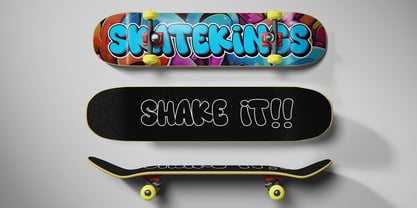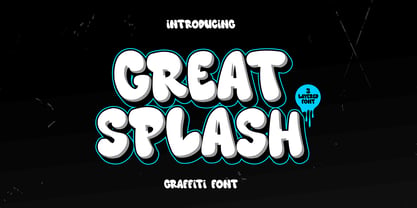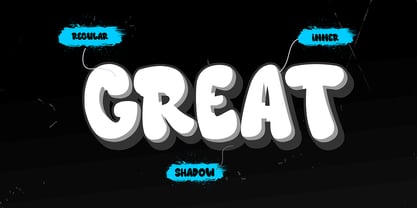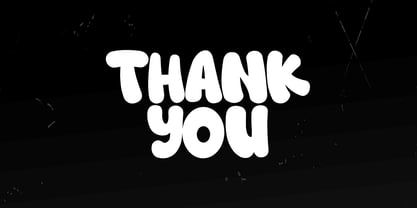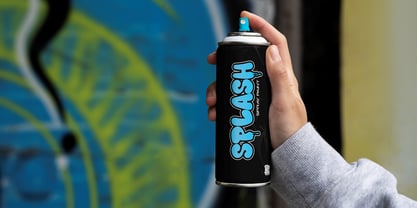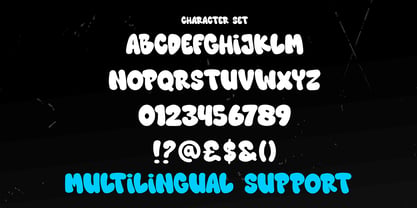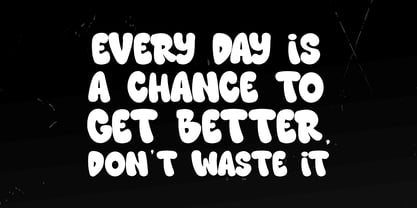
Great Splash
Ignite the urban allure in your designs with Great Splash, a powerful 3-layered graffiti font that pulsates with dynamic city vibes. Unleash your creativity and metamorphose your designs into enticing marvels replete with character and panache. With three exclusive layers, Great Splash offers unparalleled flexibility, rising above mere fonts as it allows you to intertwine styles, achieving radiant multidimensional effects that breathe life into your text.
The distinct edge of Great Splash is its faithful representation of authentic graffiti art. Its raw strokes and daring embellishments encapsulate the true essence of urban artistry making it an excellent font choice for posters, large-scale murals, album covers, and much more.
Gifted with an inherent versatility, Great Splash takes on your creative vision - be it a striking headline or a creative logo. It merges seamlessly into any creative domain, ensuring your message is not only seen, but felt. Embark on an artistic journey with Great Splash and infuse your designs with the profundity and energy of the street art culture's bold spirit.